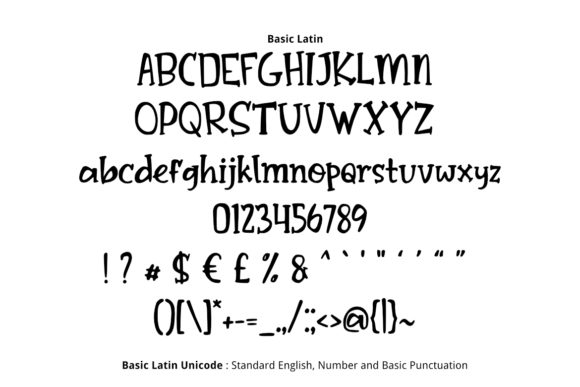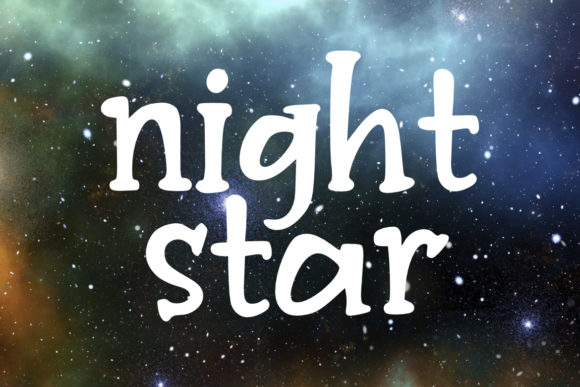
Dream Steam Font: Add a Touch of Whimsy to Your Designs
Are you tired of using the same old fonts in your designs? Do you want to add a touch of personality and whimsy to your projects? Look no further than the Dream Steam font! This fun and cartoon-looking serif font is sure to make your designs stand out from the crowd.
What is Dream Steam Font?
Dream Steam is a unique and quirky font that is perfect for designers and crafters who want to add a bit of humor and playfulness to their work. This serif font features a distinctive, hand-drawn style that gives it a charming and cartoon-like feel. With its bold lines and exaggerated letterforms, Dream Steam is sure to grab attention and add a touch of personality to any design.
Key Features of Dream Steam Font
- Unique and Quirky Design: Dream Steam features a one-of-a-kind design that is sure to make your designs stand out.
- Cartoon-Like Style: This font’s cartoon-like style makes it perfect for designs that require a touch of whimsy and humor.
- Serif Font: As a serif font, Dream Steam features small lines or flourishes at the ends of each letter, giving it a classic and elegant feel.
- Hand-Drawn Style: The hand-drawn style of Dream Steam gives it a charming and personalized feel that is sure to resonate with your audience.
Uses for Dream Steam Font
Dream Steam is a versatile font that can be used in a variety of design projects, including:
- Graphic Design: Use Dream Steam to add a touch of personality to your graphic designs, such as brochures, posters, and flyers.
- Crafting: Dream Steam is perfect for crafters who want to add a personal touch to their projects, such as handmade cards, scrapbooking, and DIY signs.
- Digital Design: Use Dream Steam in your digital designs, such as social media graphics, blog posts, and website headers.
Why Choose Dream Steam Font?
There are many fonts to choose from, but Dream Steam stands out from the rest. Here are just a few reasons why:
- Unique Design: Dream Steam features a unique design that is sure to make your designs stand out.
- Easy to Read: Despite its quirky design, Dream Steam is easy to read, making it perfect for designs that require a clear and concise message.
- Versatile: Dream Steam can be used in a variety of design projects, from graphic design to crafting.
Tips for Using Dream Steam Font
Here are a few tips for using Dream Steam in your designs:
- Use it Sparingly: While Dream Steam is a fun and playful font, it can be overwhelming if used too much. Use it sparingly to add a touch of personality to your designs.
- Pair it with Other Fonts: Dream Steam pairs well with other fonts, such as sans-serif fonts. Experiment with different font combinations to find the perfect look for your design.
- Experiment with Colors: Dream Steam looks great in a variety of colors. Experiment with different colors to find the perfect look for your design.
Dream Steam is a fun and quirky font that is perfect for designers and crafters who want to add a touch of personality to their work. With its unique design, cartoon-like style, and versatility, Dream Steam is sure to make your designs stand out. Whether you’re working on a graphic design project, crafting a handmade card, or designing a website, Dream Steam is a great choice. So why not give it a try and see how it can add a touch of whimsy to your designs?